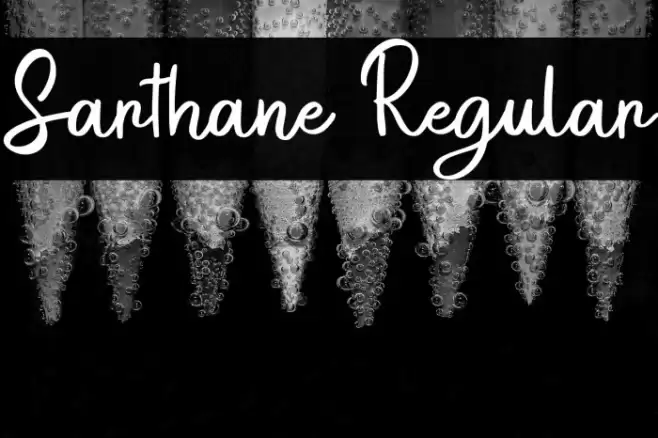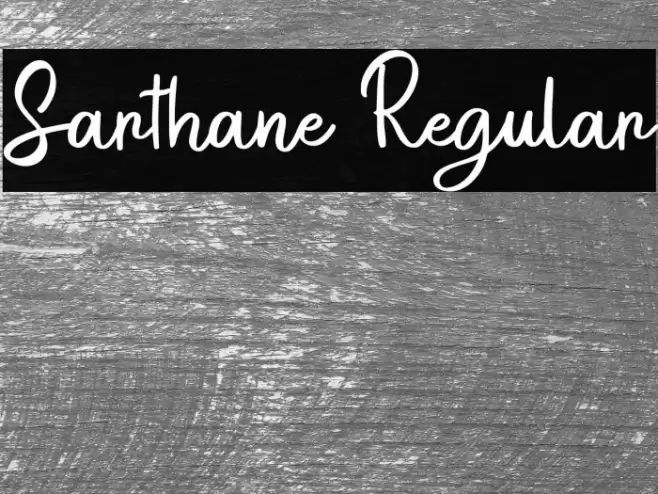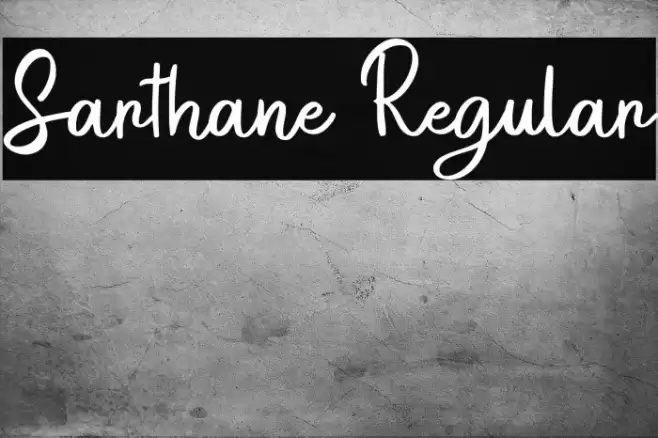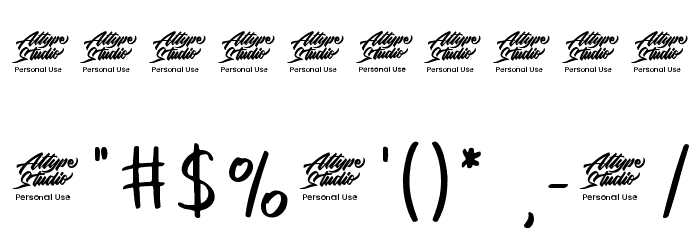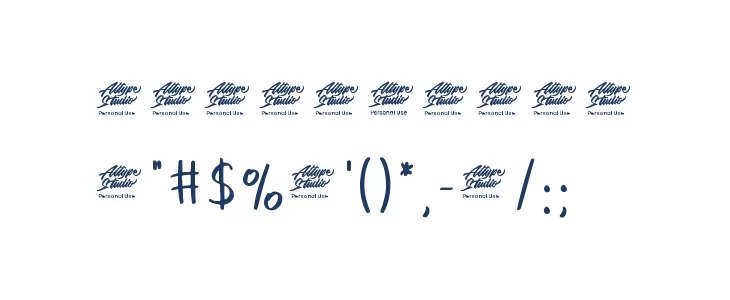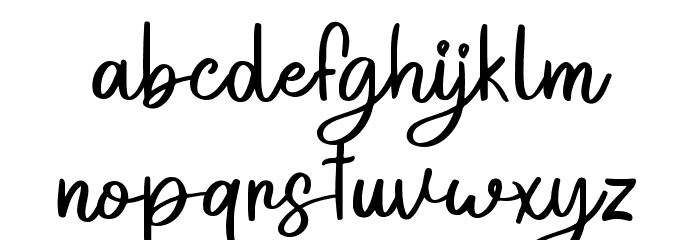
Sarthane Regular Font
Sarthane Regular Description
This font features a playful and flowing script style, characterized by its smooth, rounded edges and elegant curves. The uppercase letters are tall and slightly narrow, with distinctive loops and swirls that add a touch of whimsy. The lowercase letters maintain a consistent flow, with some characters extending below the baseline, enhancing its handwritten appeal. The numbers and special characters are crafted with the same attention to detail, ensuring a cohesive look across all elements. This font exudes a sense of creativity and personal touch, making it ideal for projects that require a friendly and approachable aesthetic.
A playful and flowing script font with elegant curves and a handwritten appeal from Regular fonts.
- Proposed Projects: Ideal for wedding invitations, greeting cards, logos, and branding materials that require a personal touch.
- Use Case: Logos, Invitations, Greeting Cards